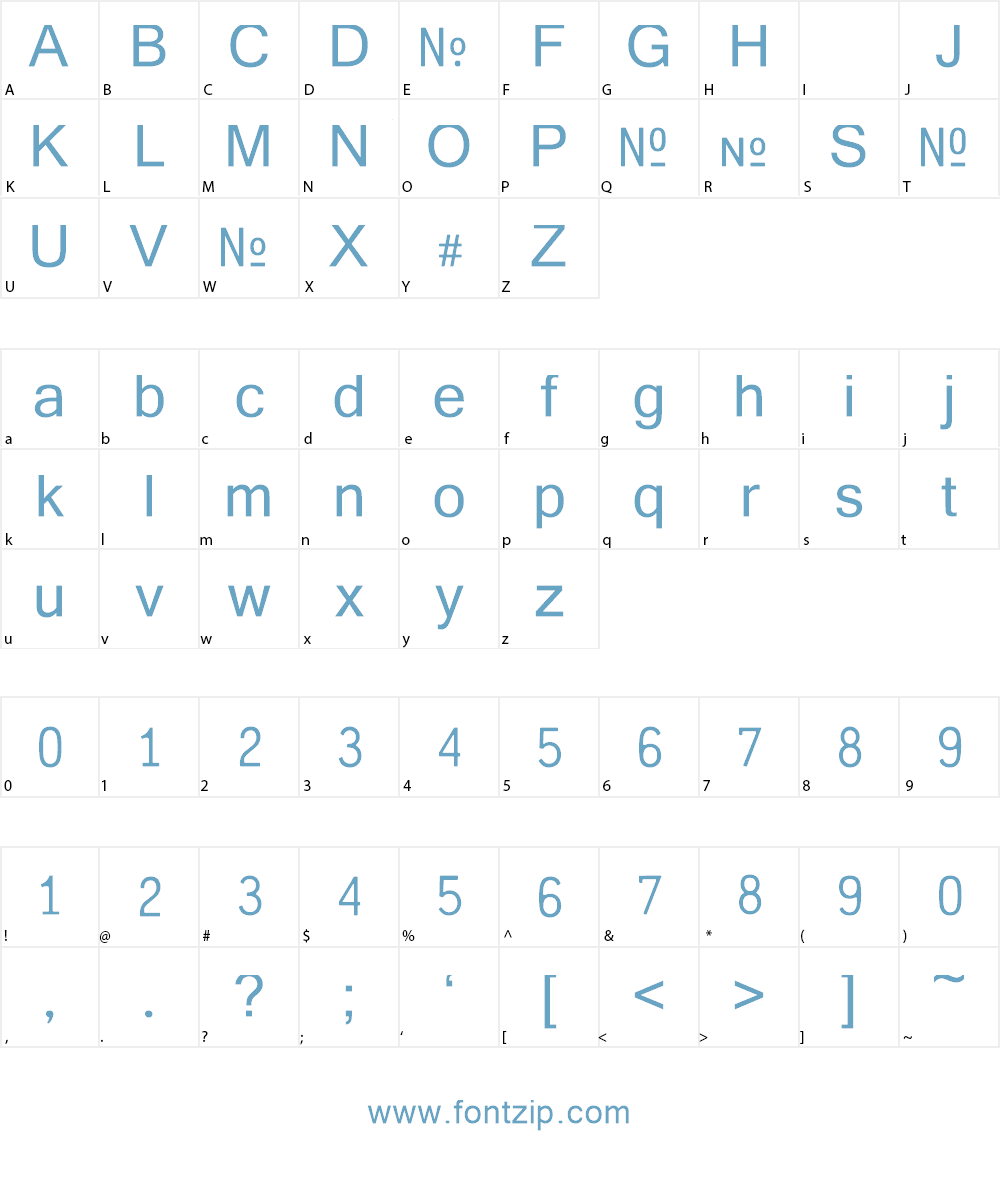
A two-font set by Philip Krayna and RXC. Guaranteed to add bureaucratic flavor to practically anything: invoices, gift certificates, work orders, etc. And because these fonts are digital and not mechanical, there is no limit on how high you can go. Infinity awaits with the Crash Numbering Kit from PSY/OPS!